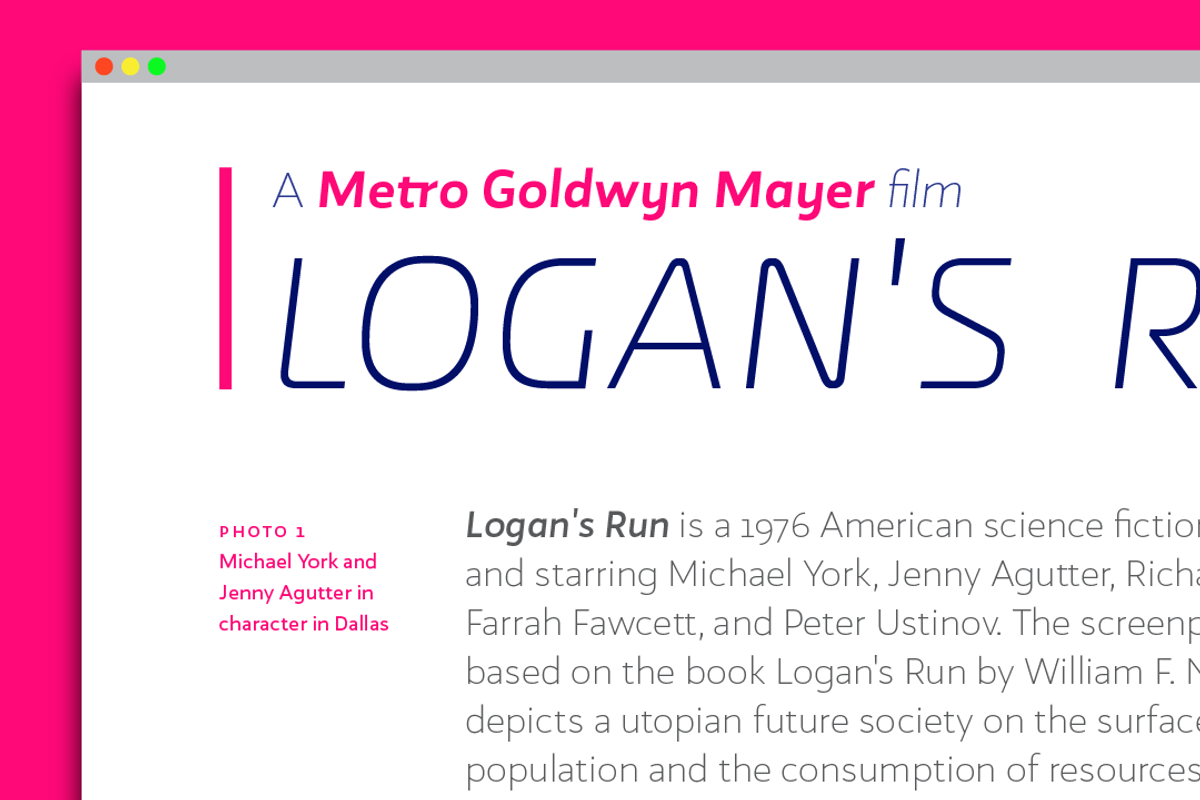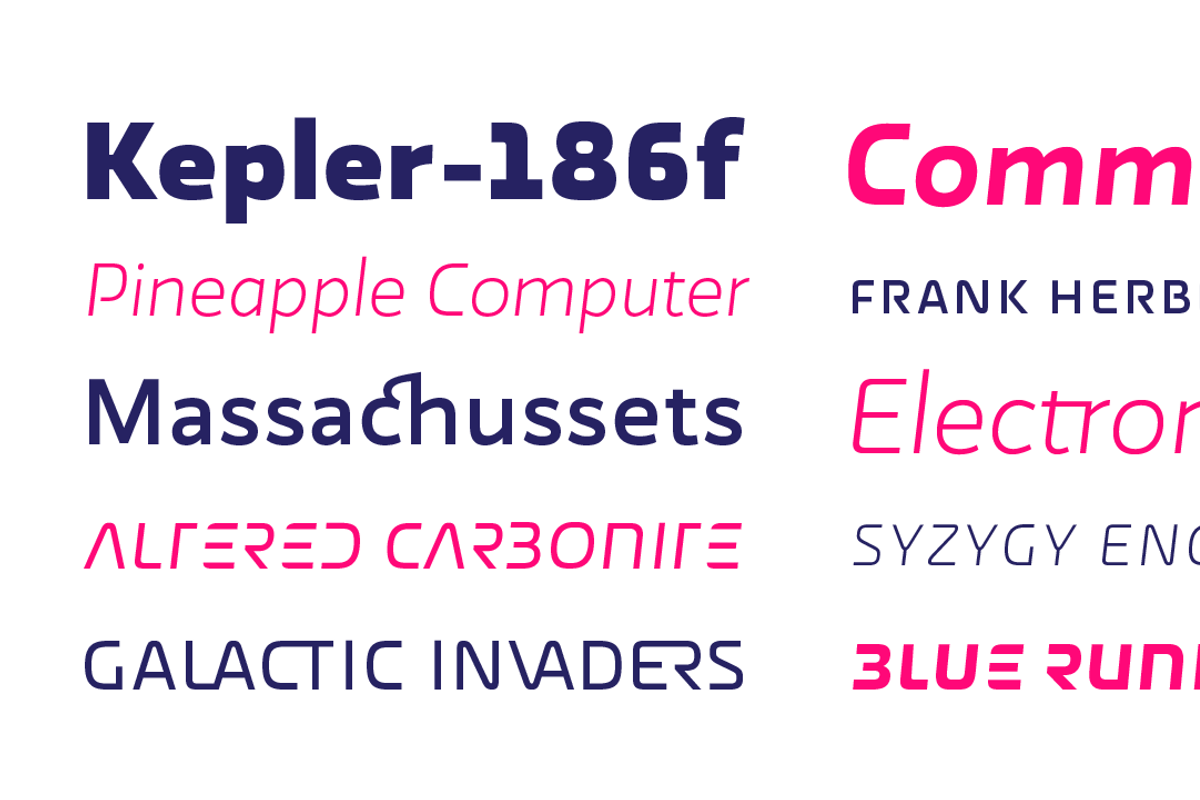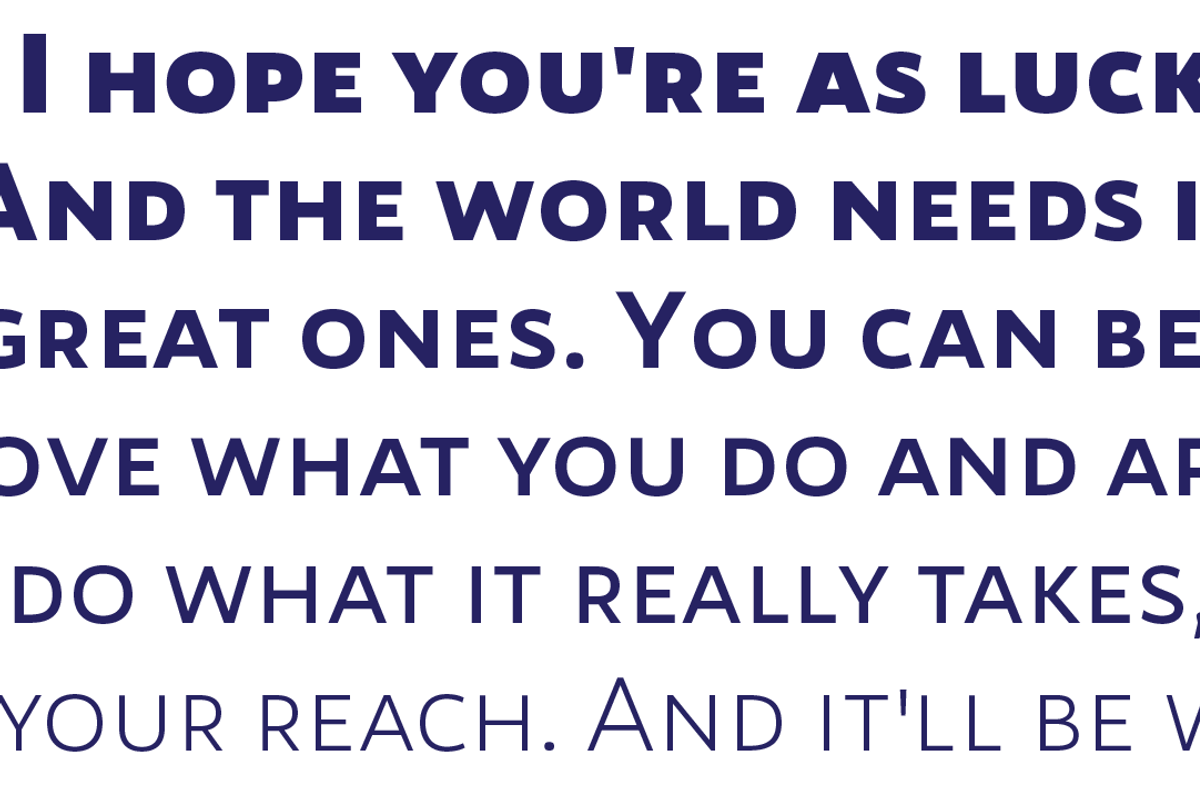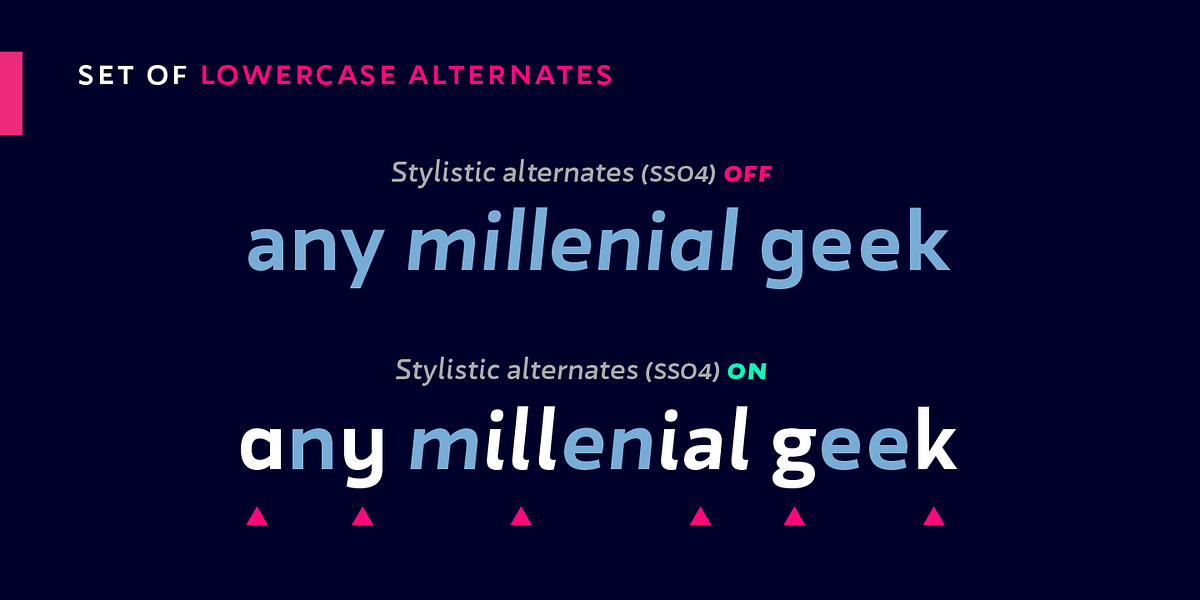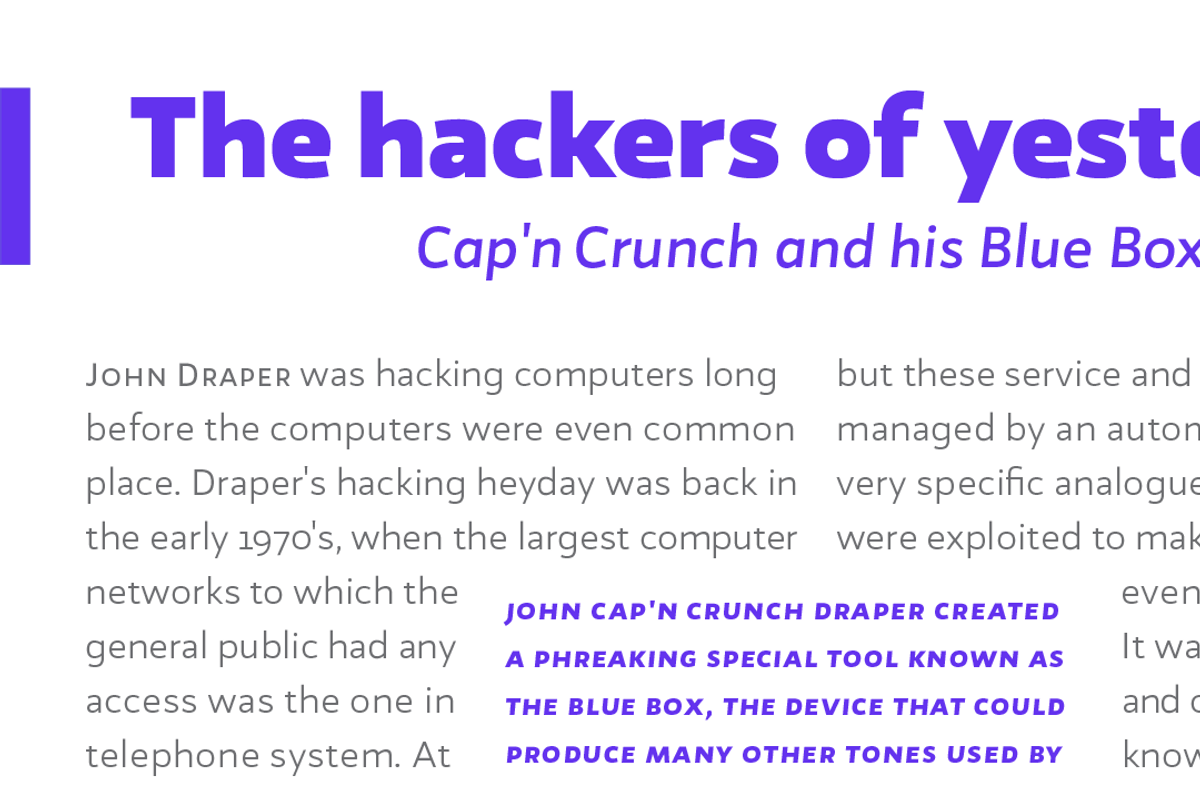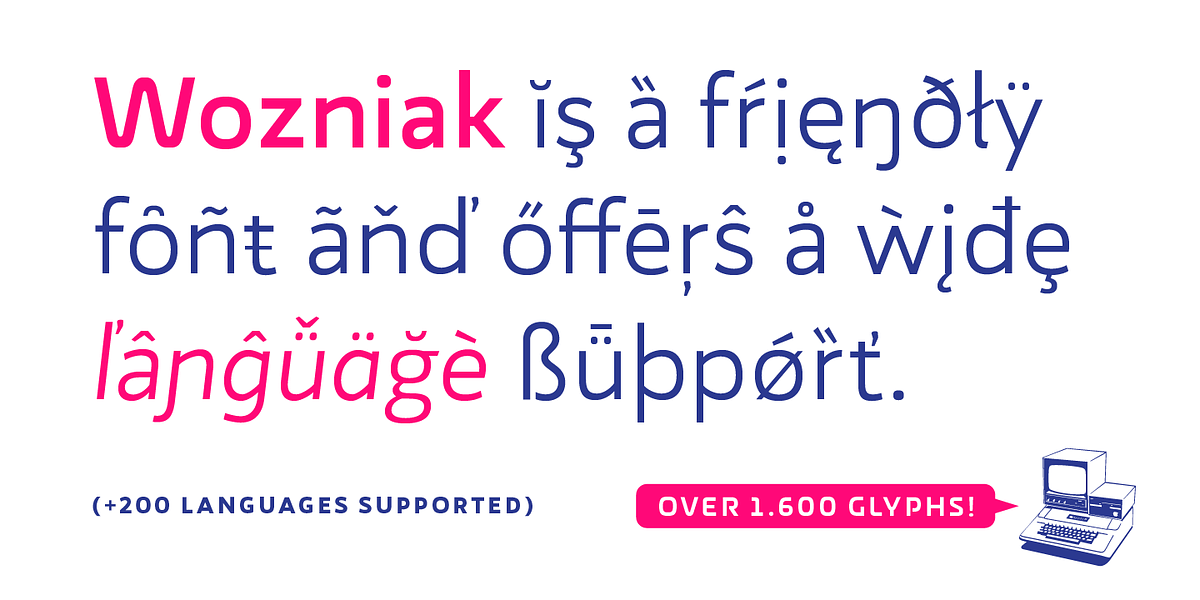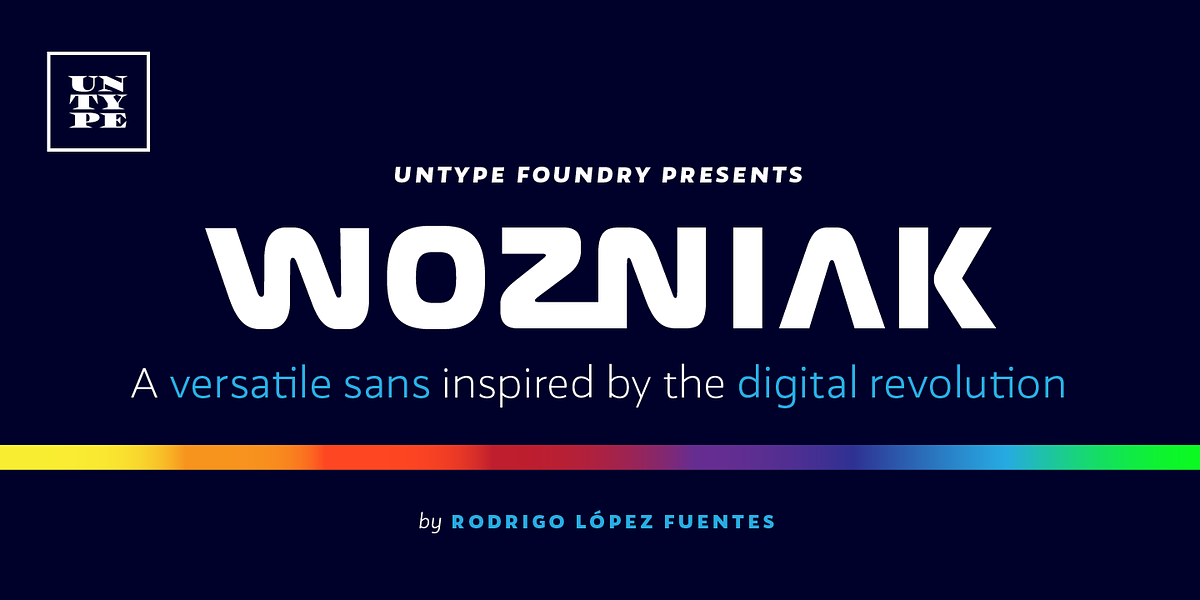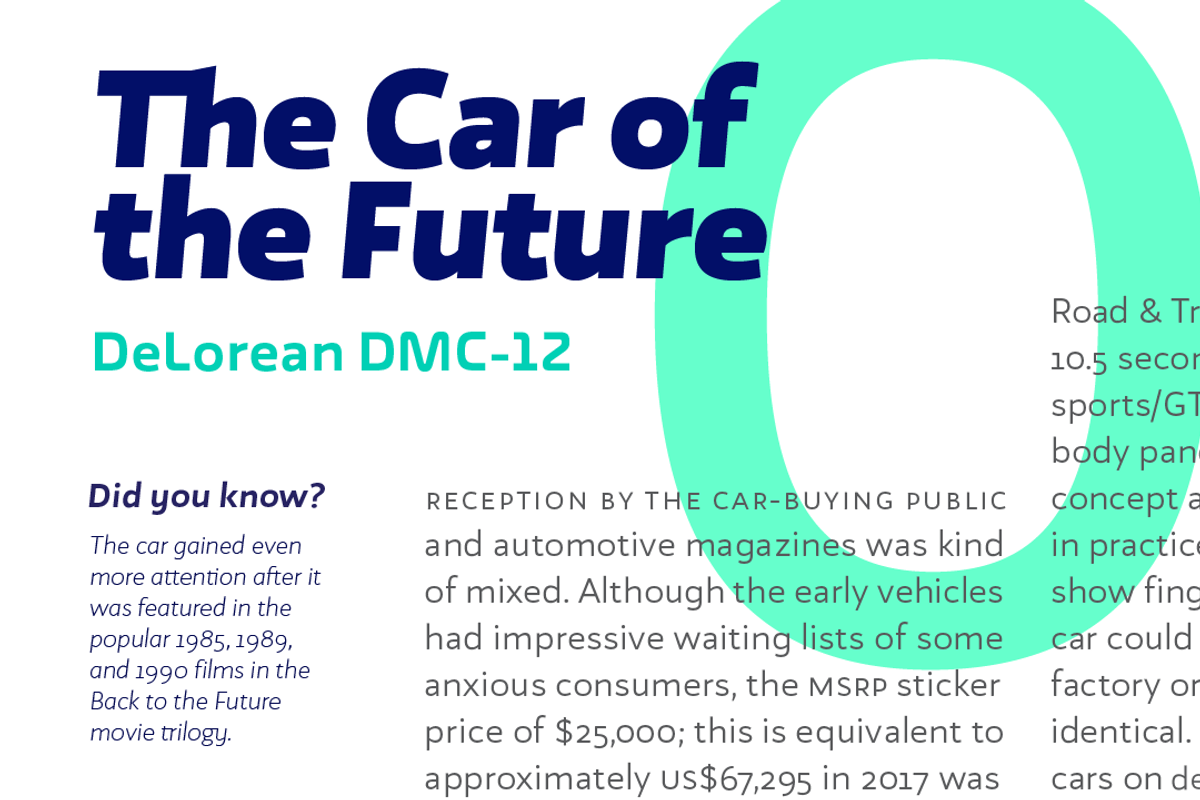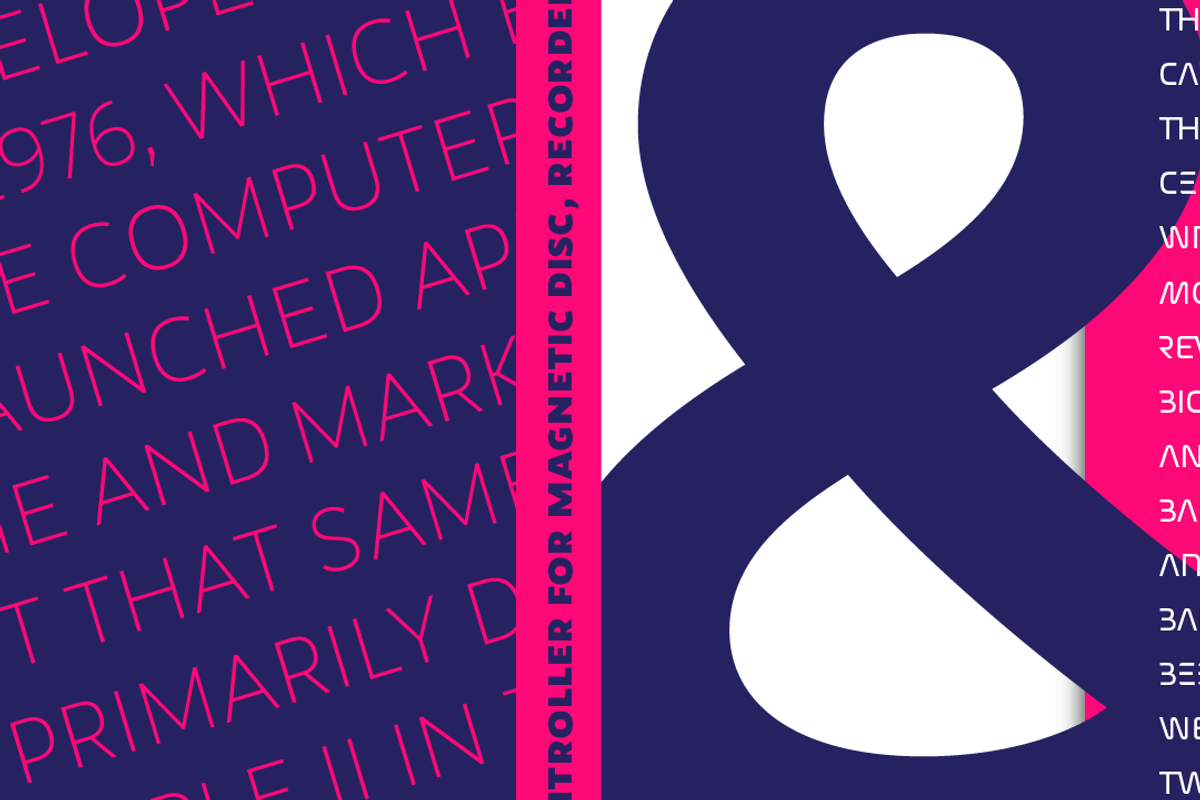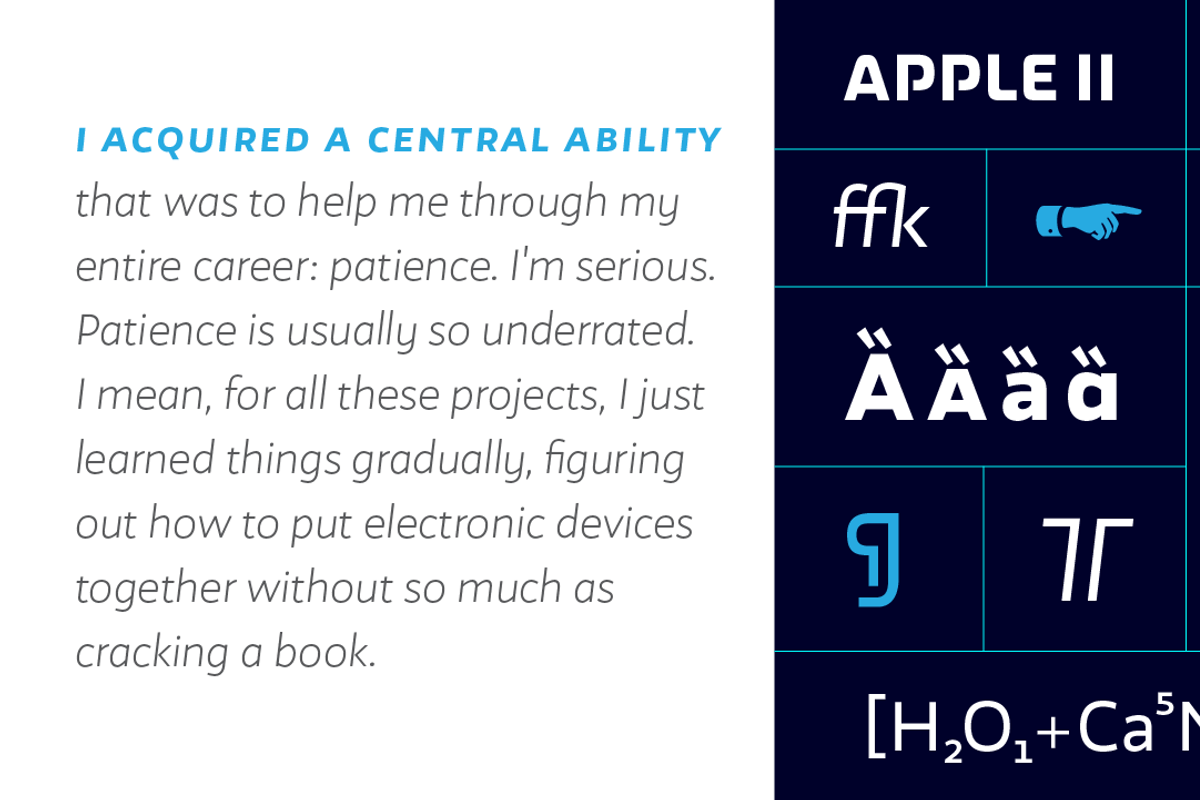
Wozniak
Wozniak is a geometric sans-serif typeface designed with versatility in mind. It offers 16 styles, including both text and display variants. The font incorporates numerous OpenType features such as oldstyle figures, lining and tabular numbers, small caps, and ligatures, enhancing its legibility and typographic flexibility. Inspired by the digital revolution and early 80s aesthetics, Wozniak includes two uppercase sets of display alternates and over 180 stylistic ligatures. It supports over 200 Latin script languages making it suitable for a wide range of applications from long-form text to headlines and branding.